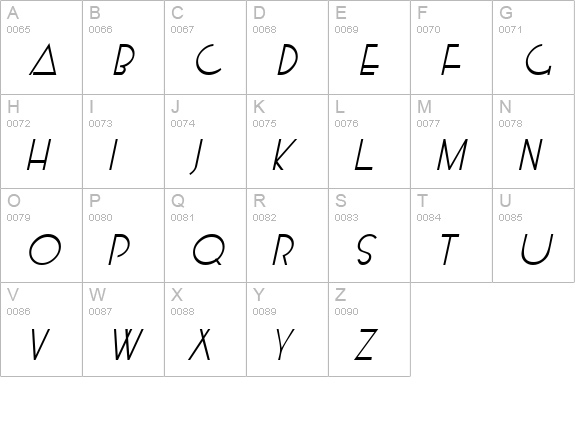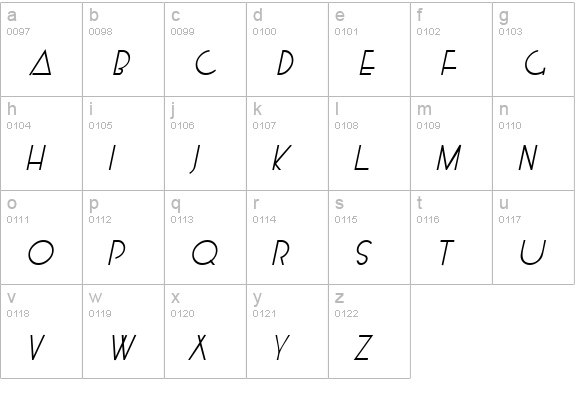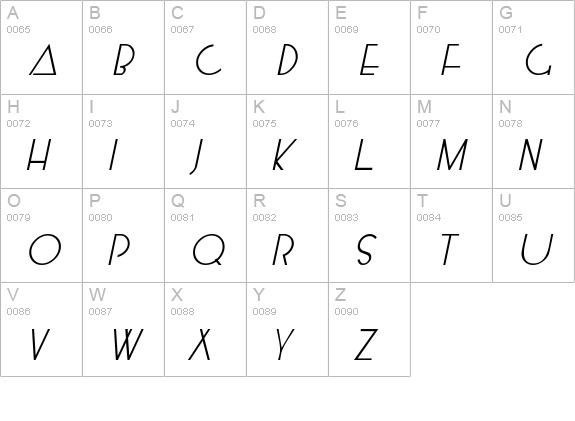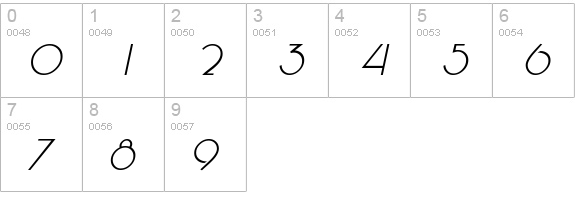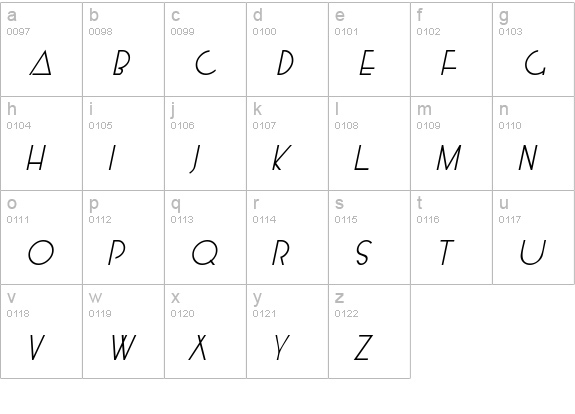
Kensington Italic Font Details
Kensington Italic is a distinctive, italic variant in the Kensington typeface family \xE2\x80\x94 well suited to design and typography projects.
Kensington Italic font is a stunning and elegant typeface that exudes sophistication and refinement. It is the perfect choice for projects that require a touch of class and timeless beauty. The fluid and flowing letterforms of Kensington Italic effortlessly capture attention, making it an excellent option for headlines, titles, and invitations. This font offers a unique blend of traditional and modern elements, combining the grace of classic serif fonts with a contemporary twist. Its slanted and italicized design adds a touch of dynamism and energy, giving your text a sense of movement and style. Kensington Italic font is meticulously crafted with attention to detail, ensuring that each letter is beautifully proportioned and meticulously balanced. The result is a harmonious and visually pleasing typeface that will elevate any design project. One of the best aspects of Kensington Italic font is that it is freely available to download at FontsMarket.com. This means that you can access this stunning font without any cost, making it an ideal choice for budget-conscious designers and creators. Whether you are a professional designer or a hobbyist, Kensington Italic font allows you to enhance your work with a touch of elegance, all without breaking the bank. So, if you are looking to add a touch of sophistication and timeless beauty to your design projects, look no further than Kensington Italic font. Download it for free at FontsMarket.com and unlock the potential to create stunning and visually captivating designs that leave a lasting impression.